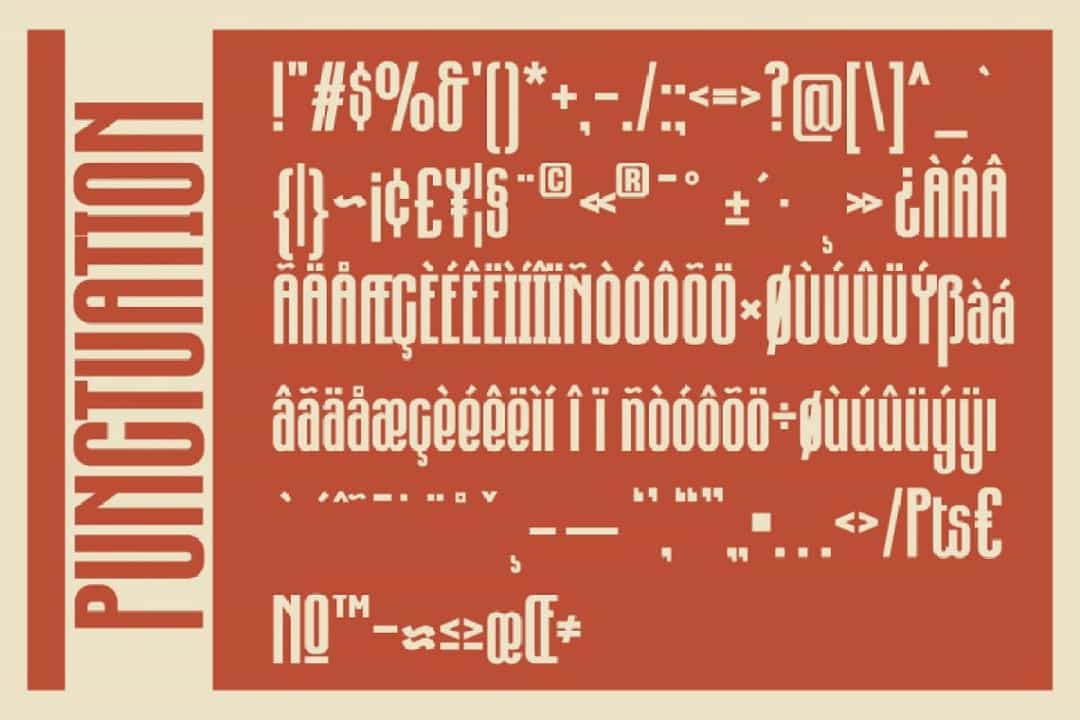
The Goodfather Font
The Goodfather is an enlarged sans serif font with modern, yet vintage aesthetic. This font can make your designs pop thanks to its easy read style; perfect for posters and labels, logos packaging quotes YouTube video social media stationary book covers stickers price tags book covers craft etc! Give any project that retro touch by using The Goodfather!